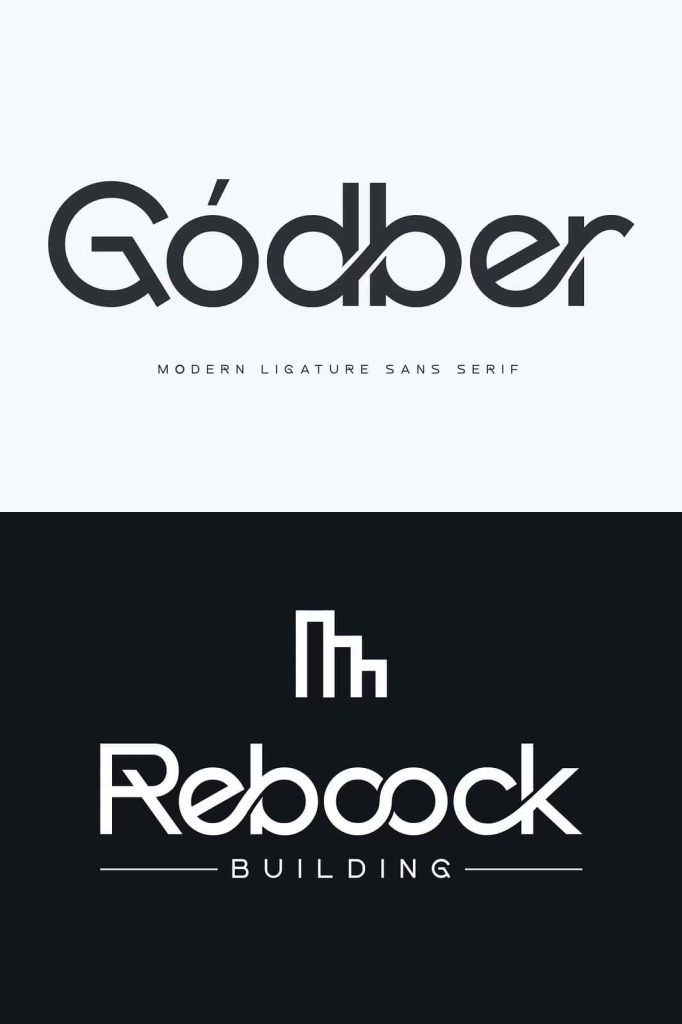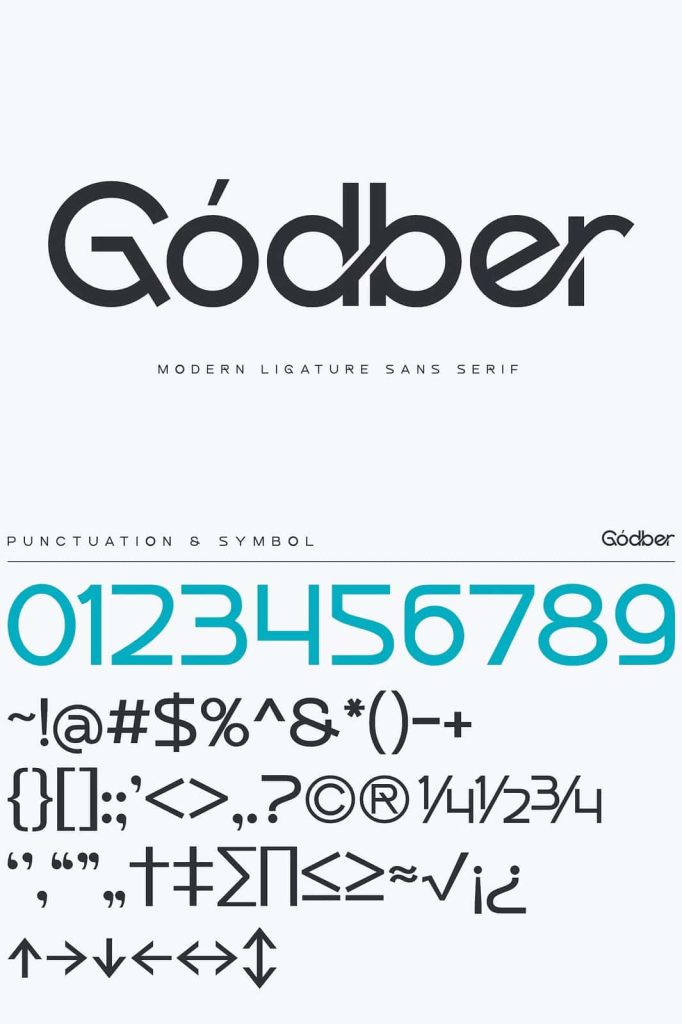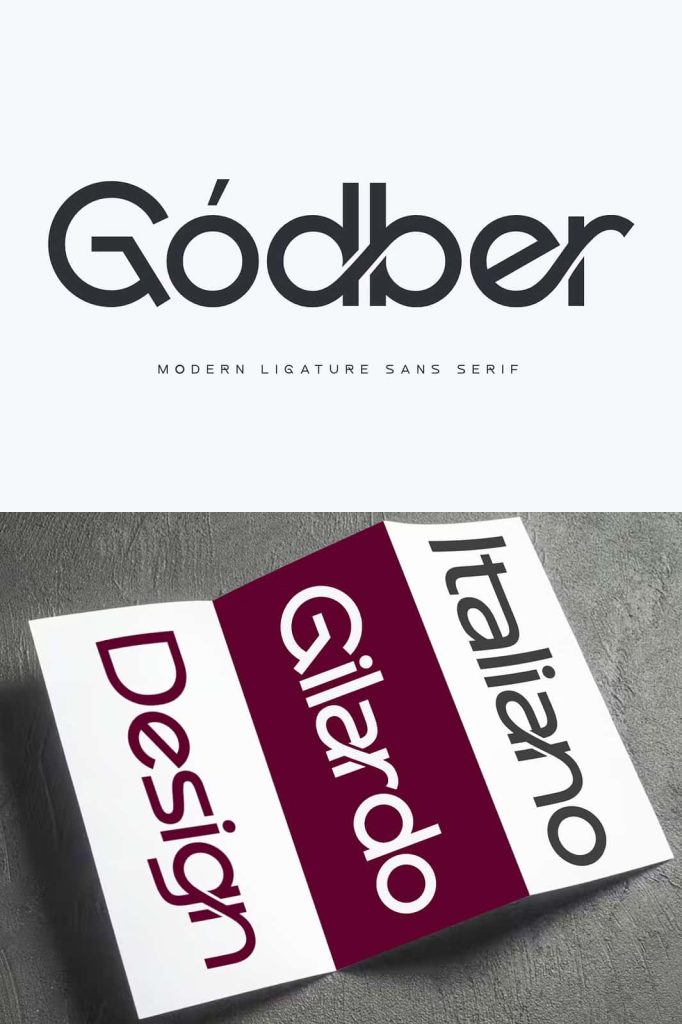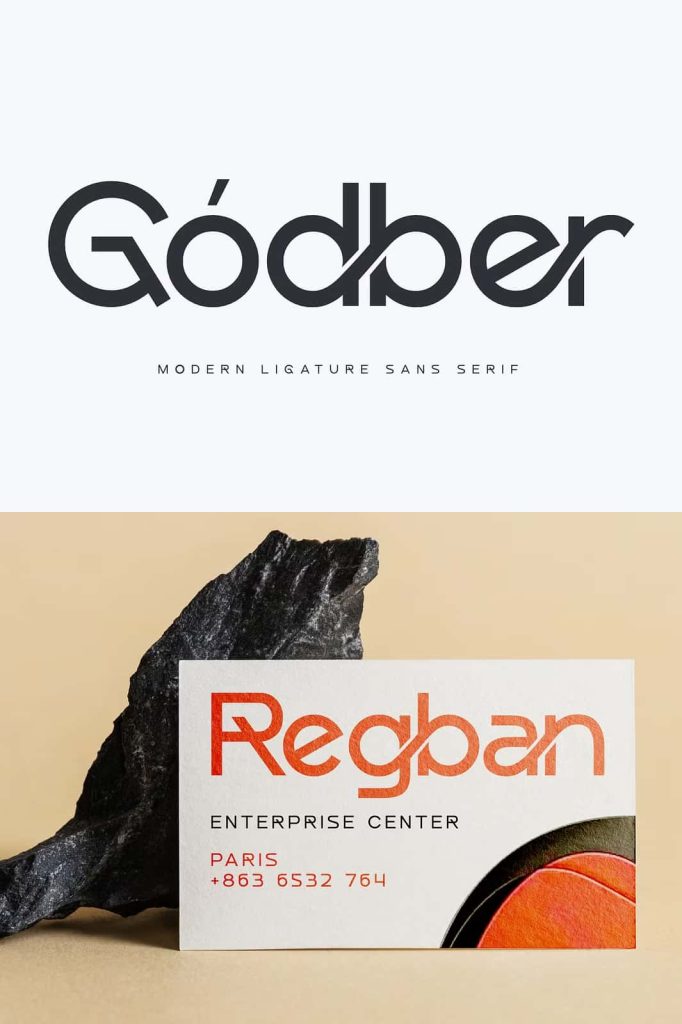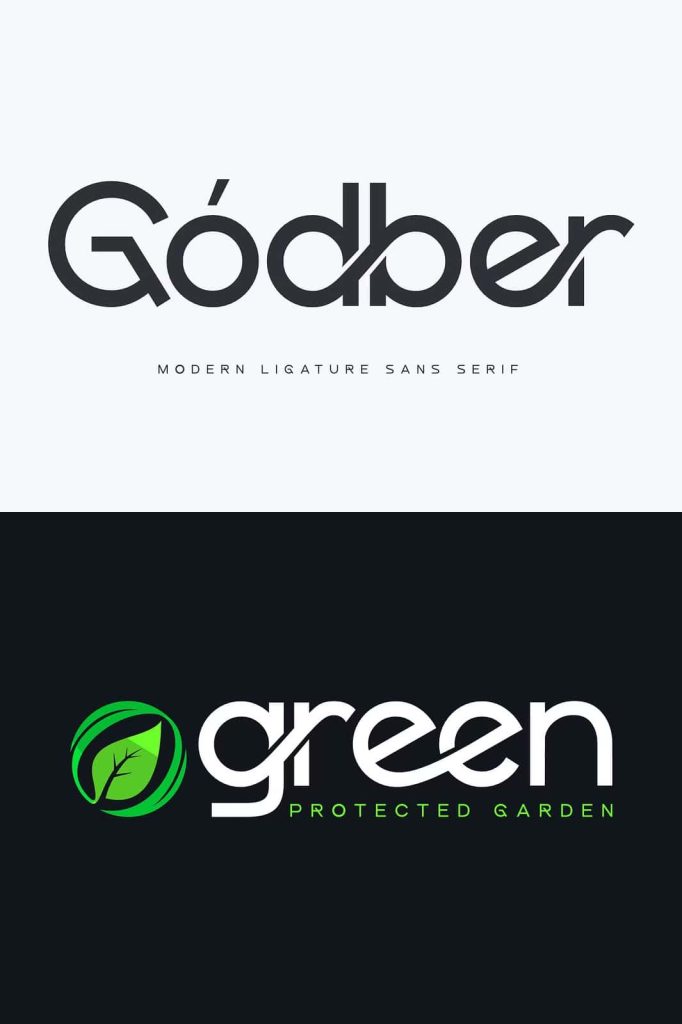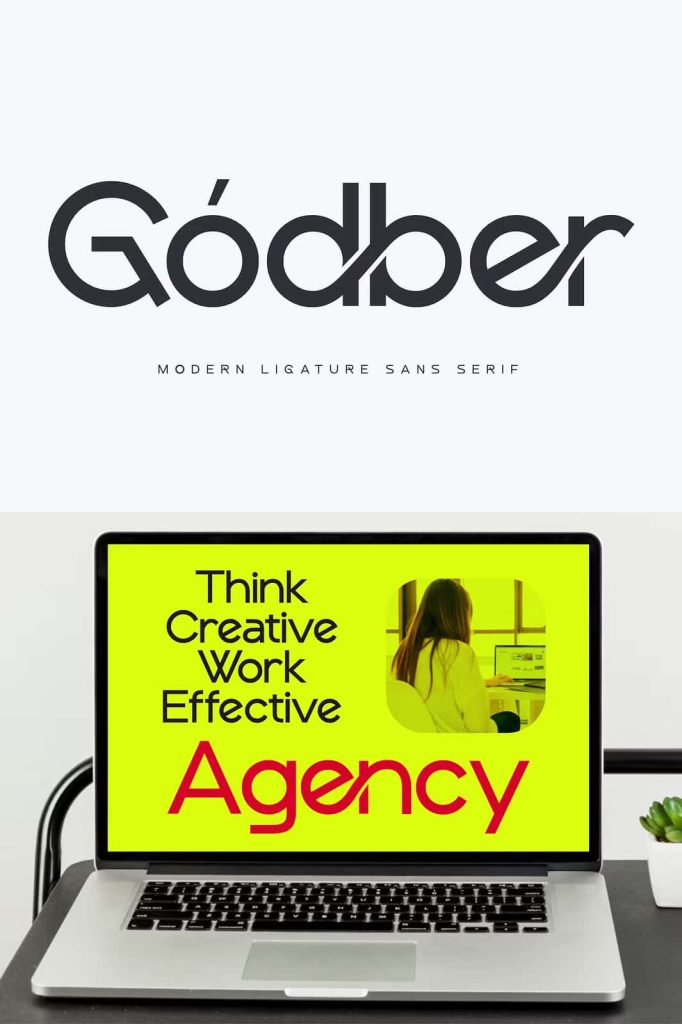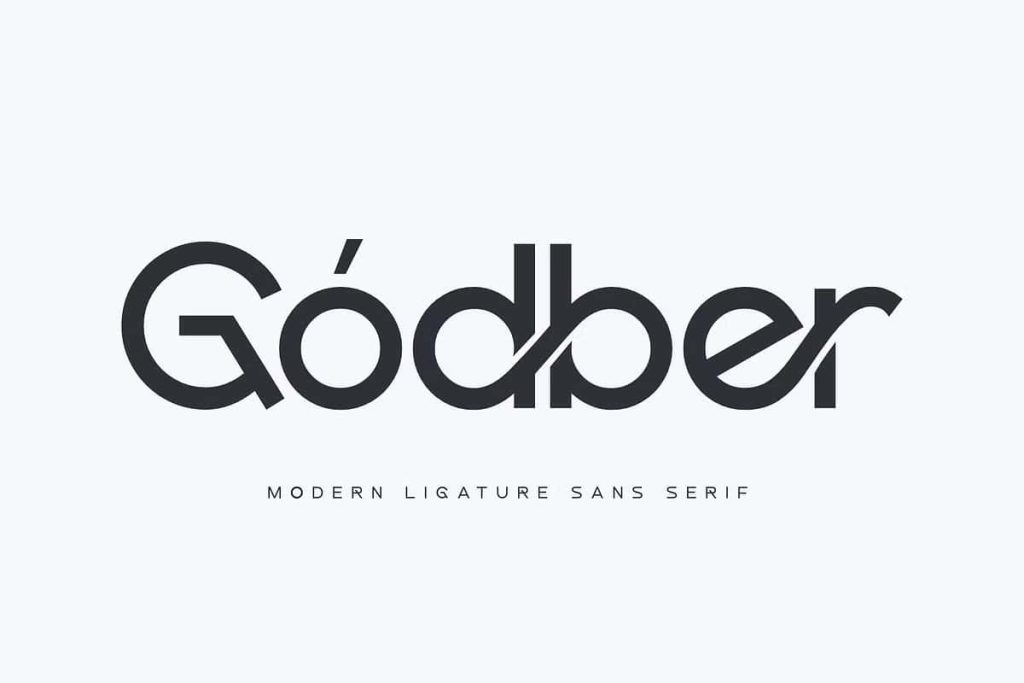
Godber – Modern Ligature Sans Serif
Introducing Godber, a bold and captivating font designed to elevate your brand’s presence. Perfect for crafting modern, attention-grabbing logos, Godber combines clean lines with dynamic aesthetics to ensure your brand stands out.